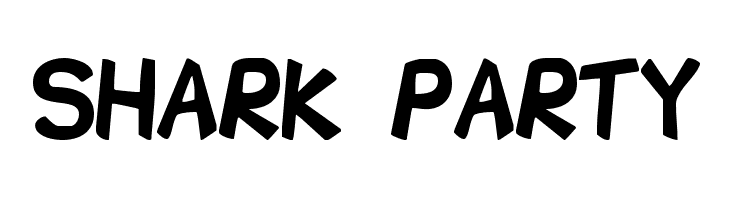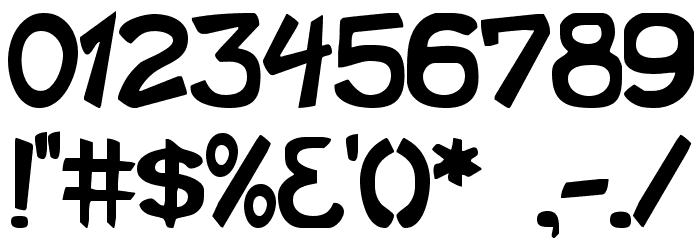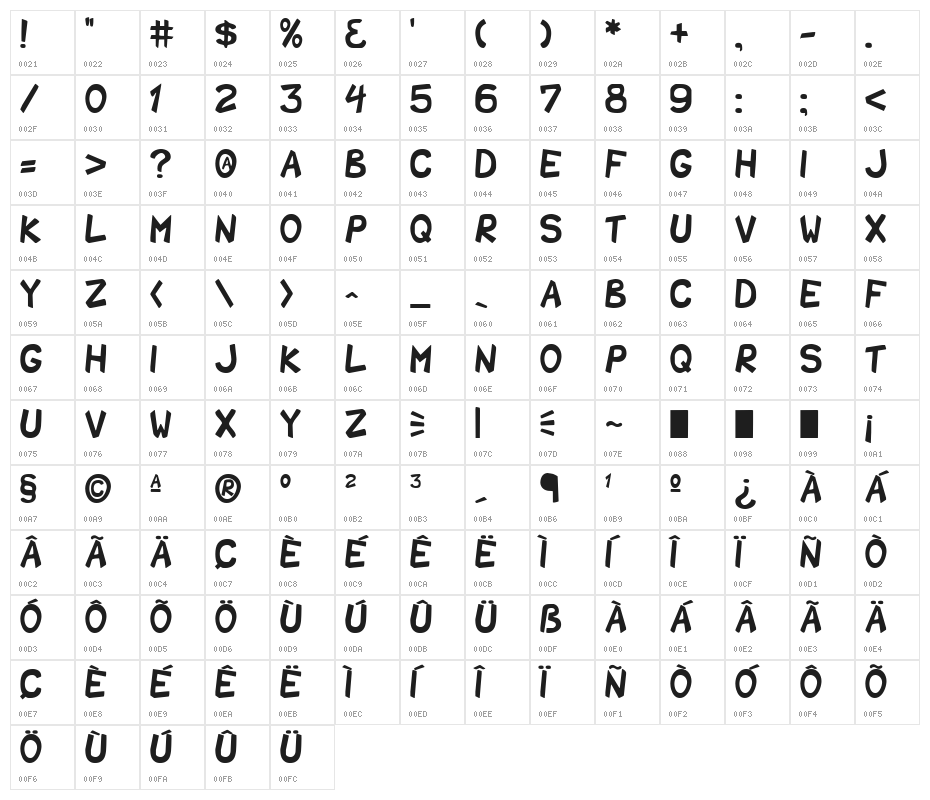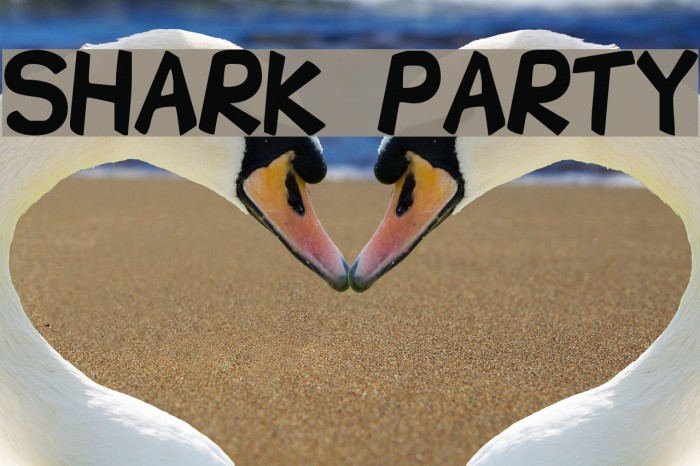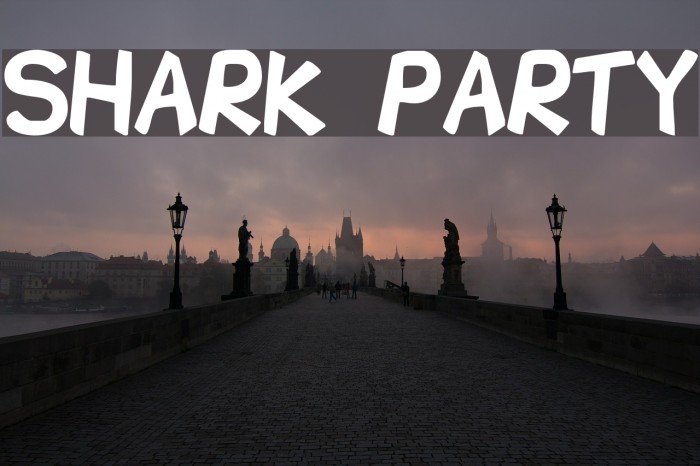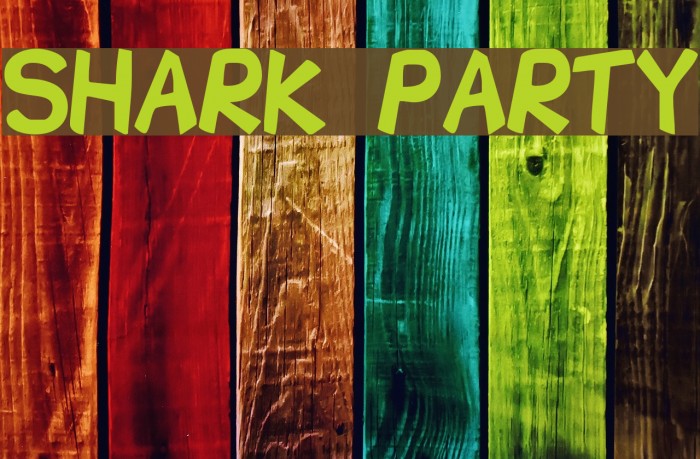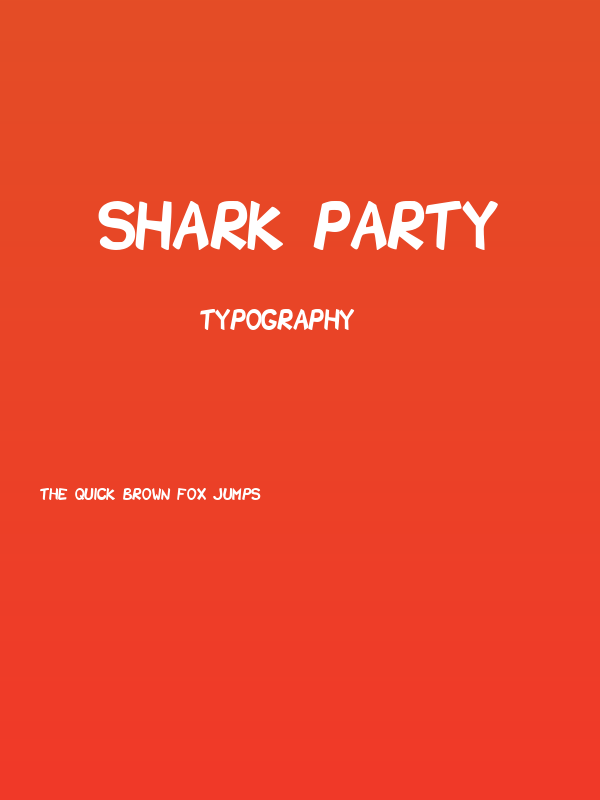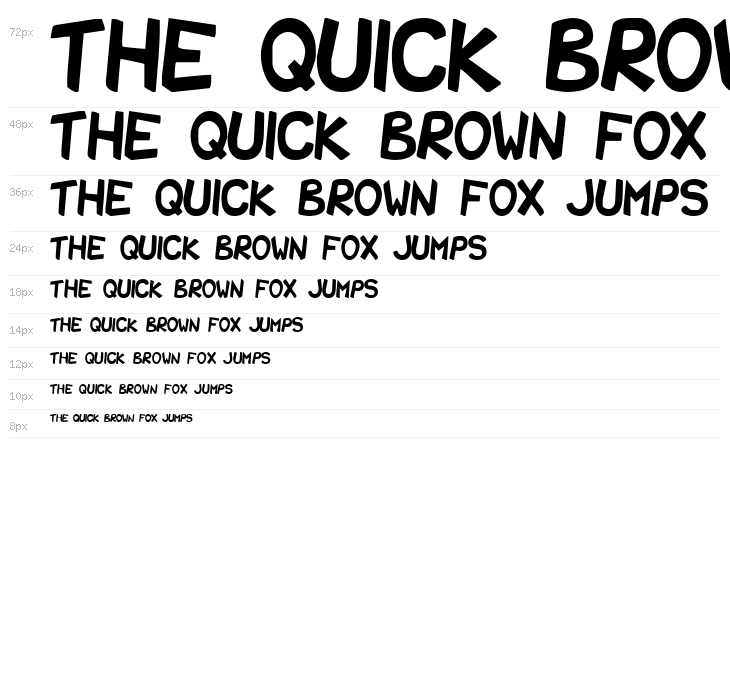
Shark Party Font
Shark Party Description
This playful and bold font features a unique, slightly irregular style that gives it a fun and energetic appearance. The letters are thick and have a hand-drawn quality, with each character exhibiting a slight tilt or curve, adding to its whimsical charm. The font maintains a consistent weight throughout, ensuring readability while still offering a distinctive look. The numbers and special characters follow the same playful design, making it versatile for various uses. Its bold strokes and lively character make it ideal for projects that require a touch of creativity and fun.
| Overall Style | Playful, Energetic, Fun |
| Proposed Projects | Ideal for children's books, party invitations, playful branding, and creative posters. |